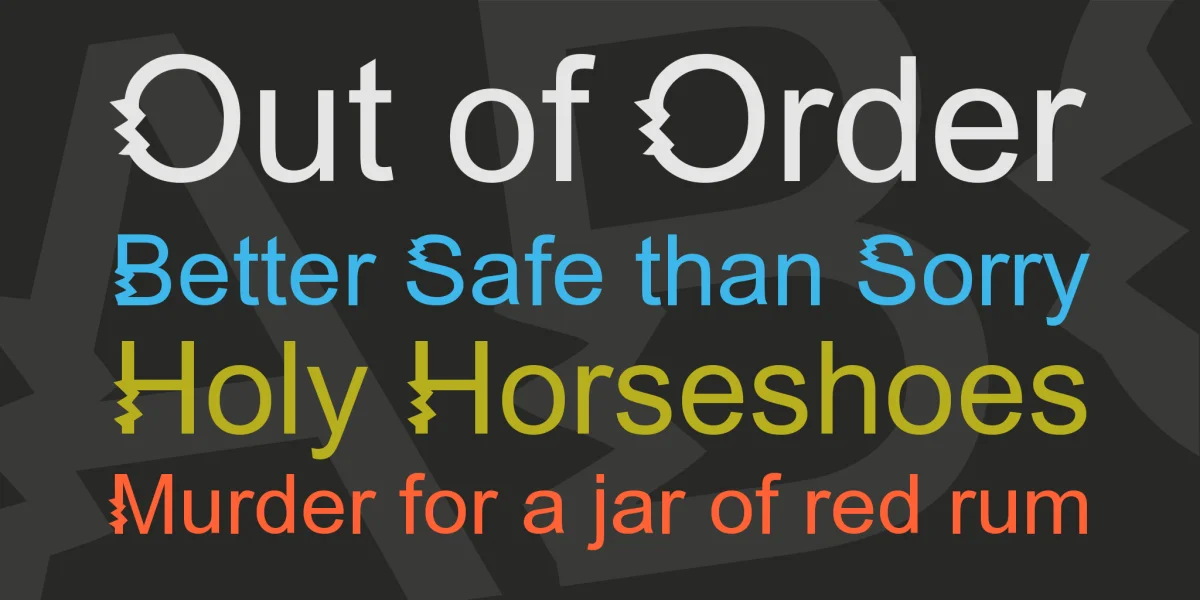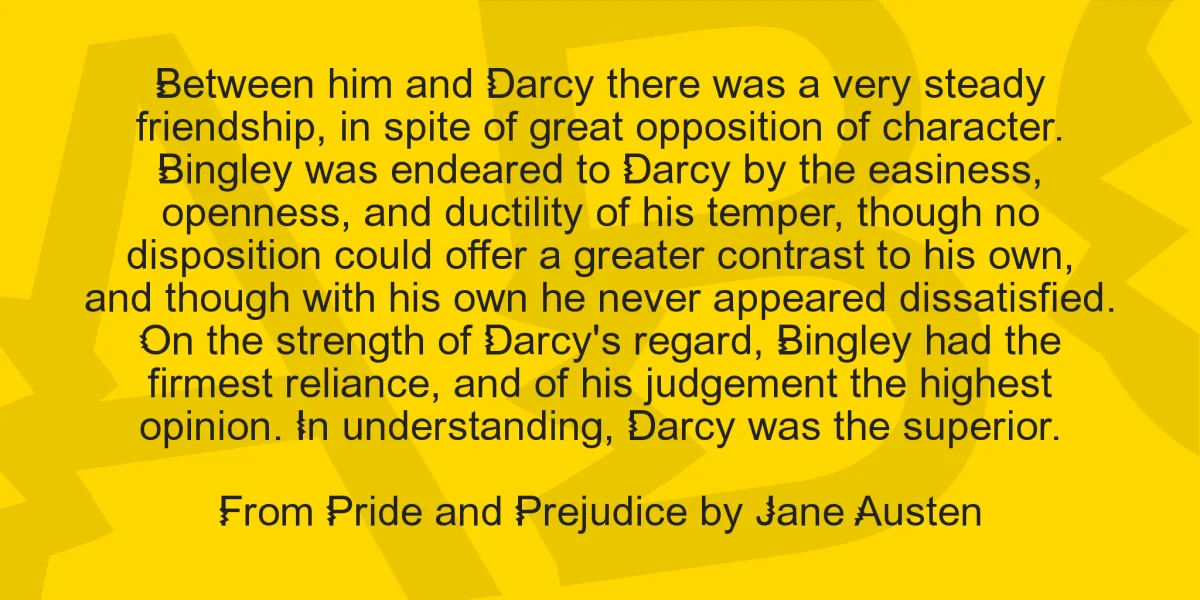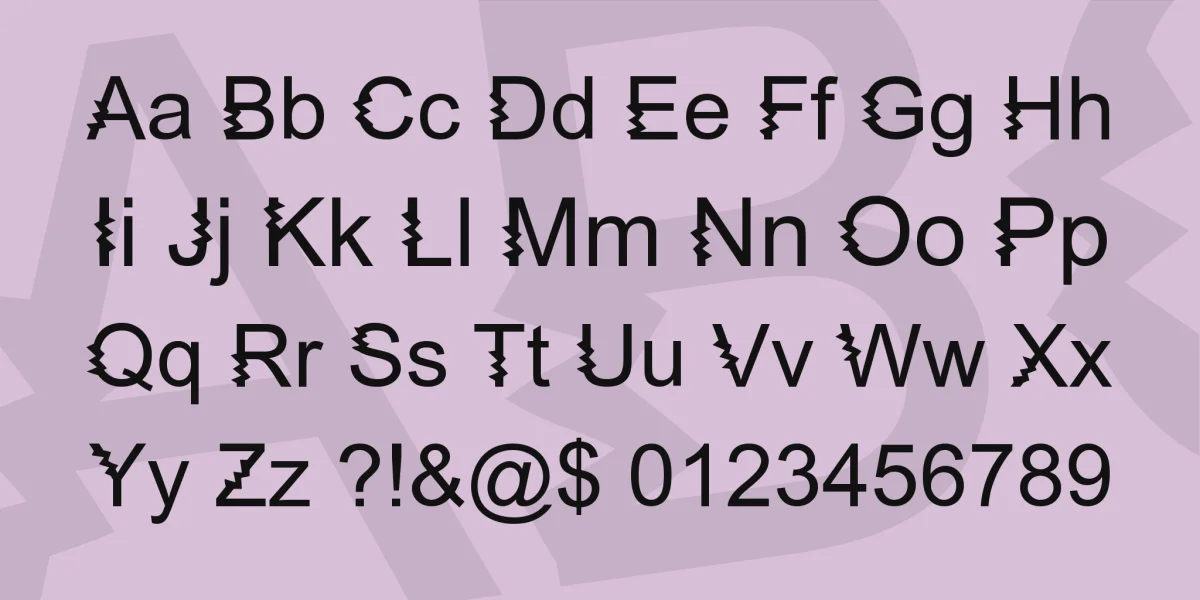
The little squiggly lines only show up in the capital letters, and in a few other select symbols. Doesn't it remind you of the symbol for a resistor? I was originally going to call this Transistor Resist Her but thought the name was too long.